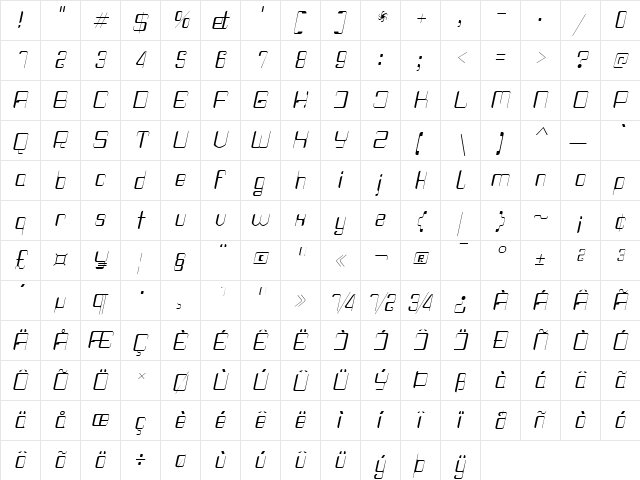
Haike Thin SemCond Italic Font Preview
| Foundry | Otto Maurer |
| Designer | Otto Maurer |
| Year | 2010 |
Design Context for Haike Thin SemCond Typeface
Haike Thin SemCond takes a measured approach to typography — its balanced proportions and neutral character make it a reliable workhorse for both digital and print work. Its italic angle brings a sense of urgency and motion to the letterforms. The delicate stroke weight brings airiness and refinement to layouts. The condensed width makes it efficient for tight spaces without sacrificing legibility.
Pro Tip: Try Haike Thin SemCond for annotation and caption copy alongside an upright companion — the contrast in angle creates a dynamic but ordered typographic system.